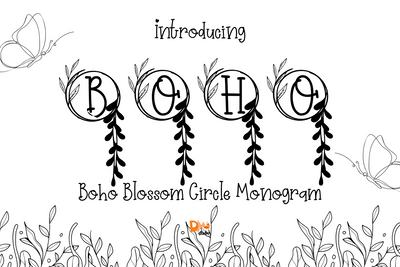
Boho Blossom Circle Monogram
Boho Blossom Circle Monogram – Floral Serif Monogram Font with Blooming Circle Accents
Boho Blossom Circle Monogram is a radiant serif monogram font where each uppercase letter is beautifully framed in a circle of hand-drawn floral blooms. Blending rustic charm with feminine elegance, this typeface is perfect for wedding monograms, Cricut crafts, branding, and seasonal packaging that need a fresh botanical flourish.
Blooming Circle Design: Each letter is encircled by delicate blossoms for a soft, organic visual impact.
Elegant Serif Base: Structured serif letterforms ensure clarity and timeless appeal.
Whimsical Boho Touch: Ideal for nature-inspired, floral, and romantic designs.